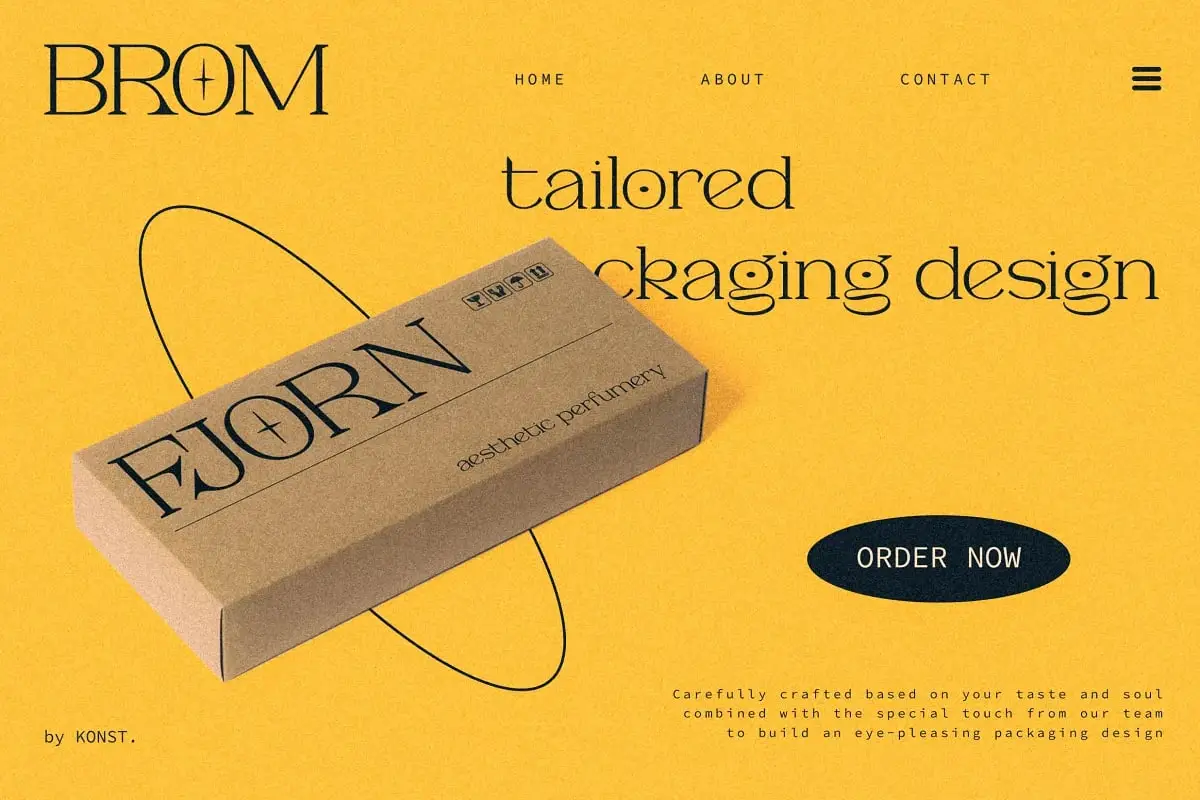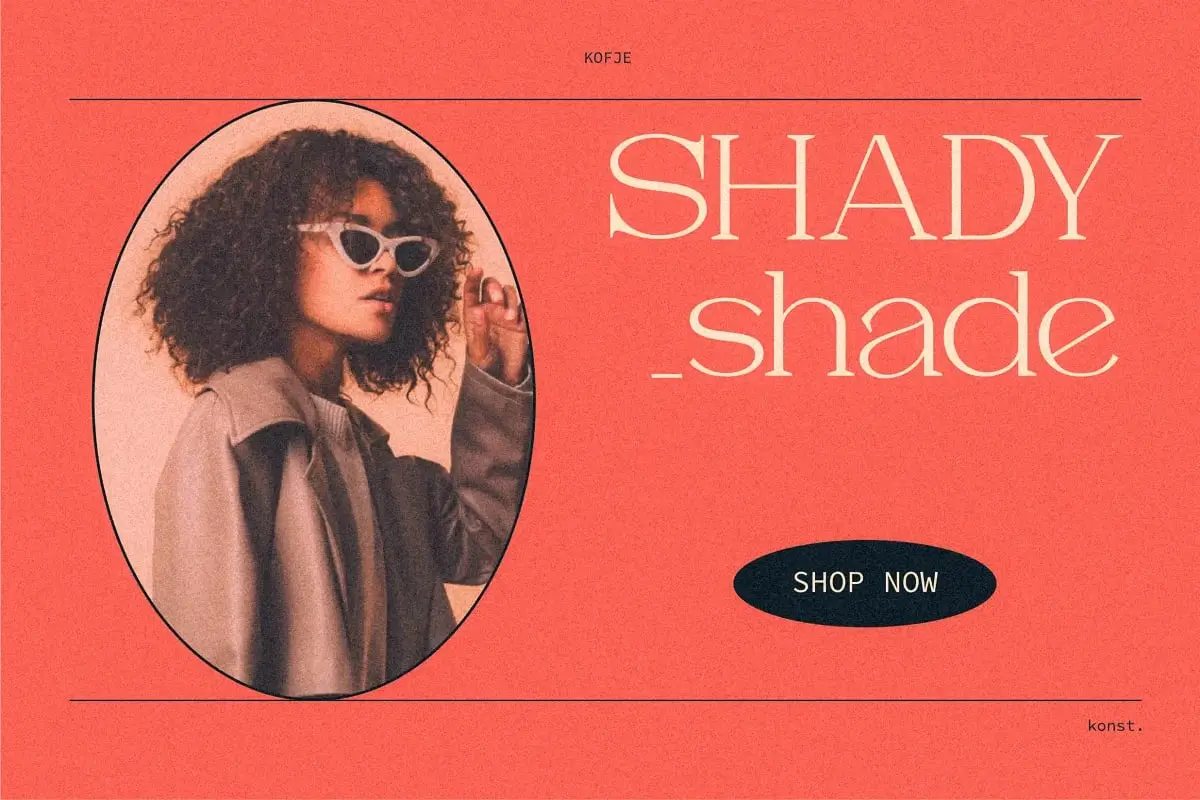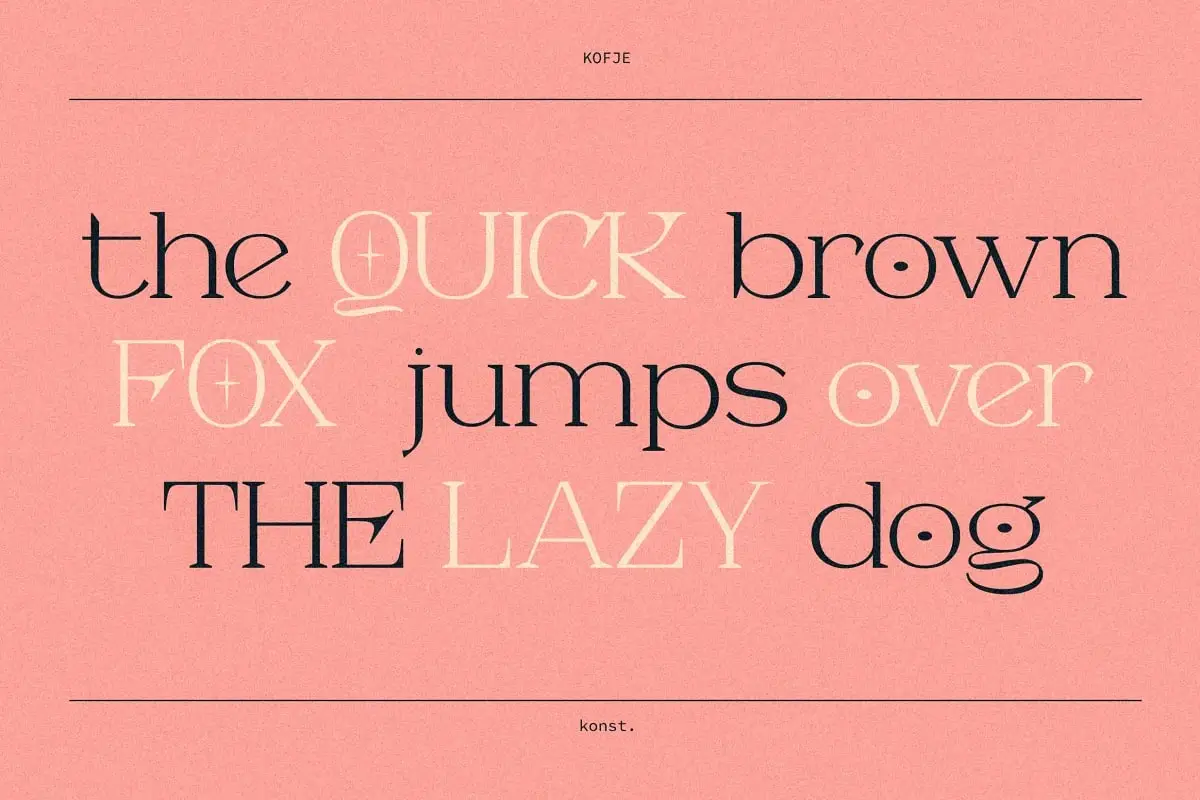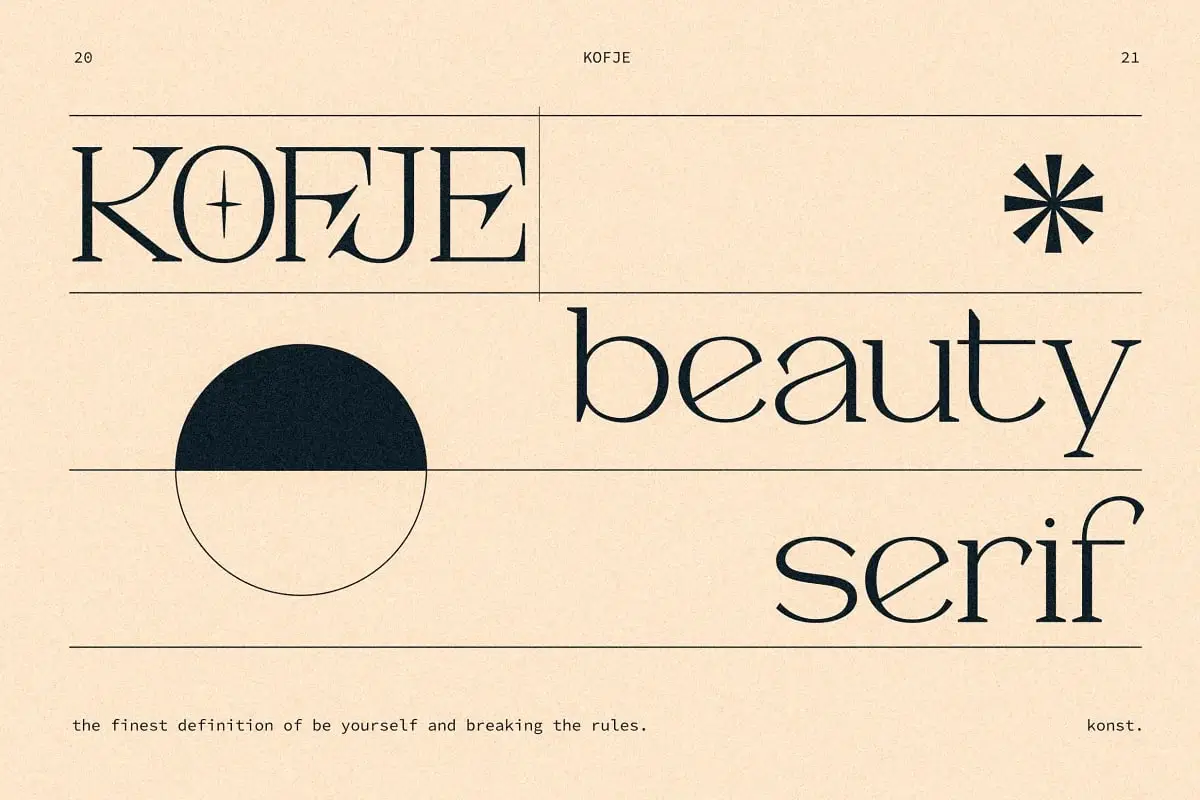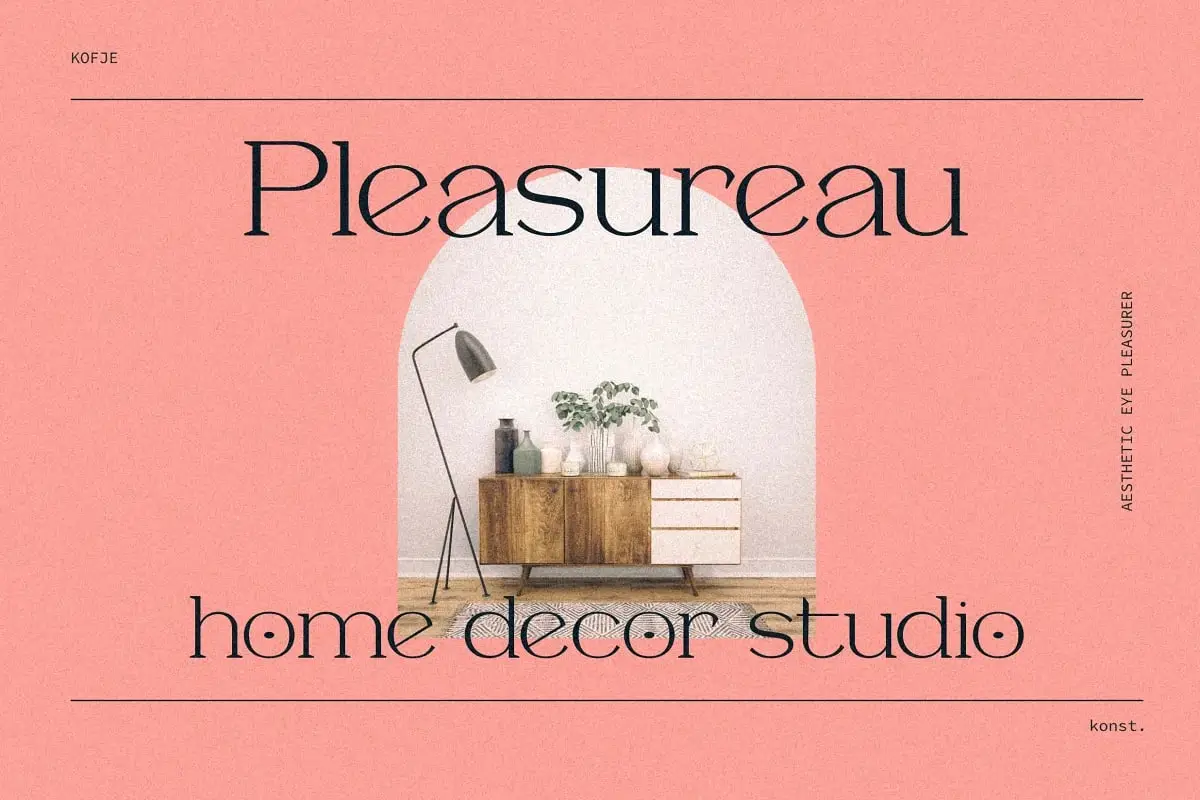
Kofje-Beauty Serif Fonts
Kofje-Beauty Serif Fonts are a stunning collection of typefaces designed to bring elegance and sophistication to your projects. With a variety of styles and weights, these fonts are perfect for both digital and print applications.
• Multiple styles and weights for versatile design options
• Classic serif design for a timeless look
• High-quality rendering for both web and print
• Character set includes uppercase and lowercase letters, numbers, and special characters
• Ideal for branding, logos, and editorial design
• Use in web design for a polished and professional appearance
• Perfect for invitations, business cards, and other print materials